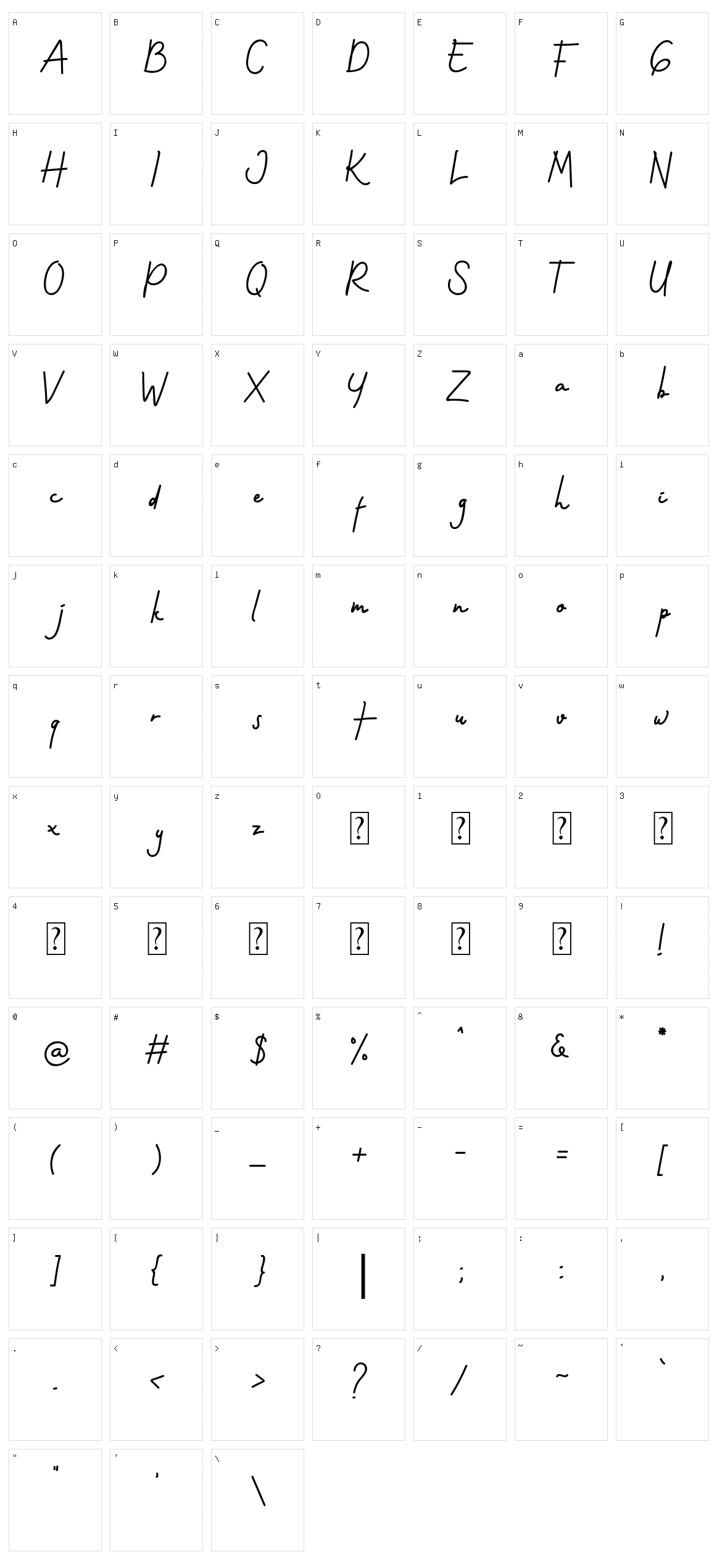
Introducing my new font project, it's Signature font called Gothenstone.
The Gothenstone is an amazing signature font. It has a natural look and will add a personal touch to your design.
This font is very suitable for Signature logo, Wedding invitation, Birthday invitation,
Greeting card, quote, Headline magazine, Clothing, Poster, Stationary and many other project design.